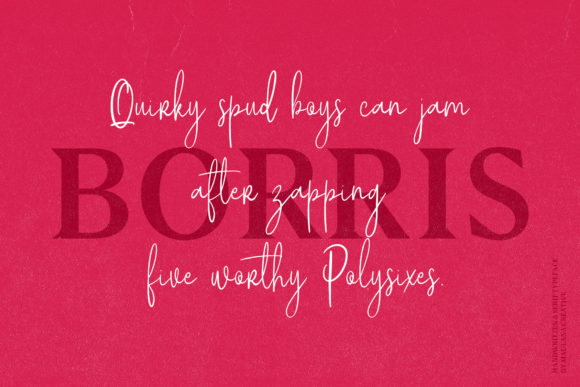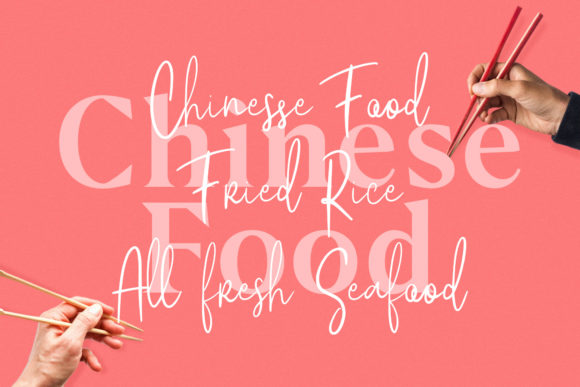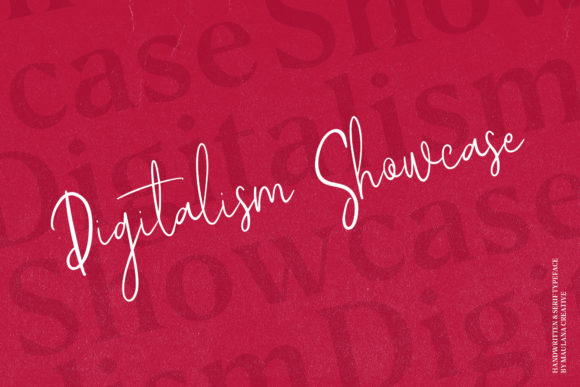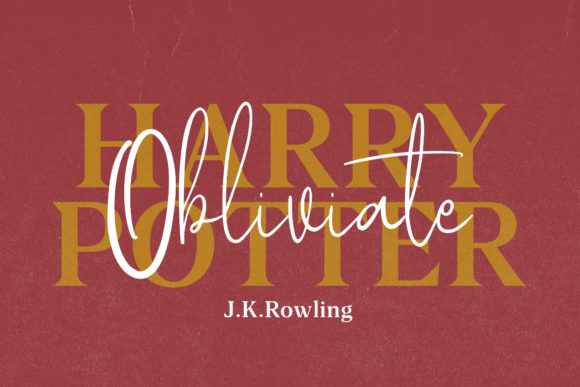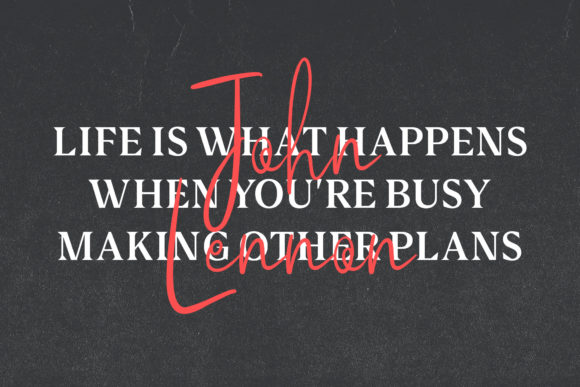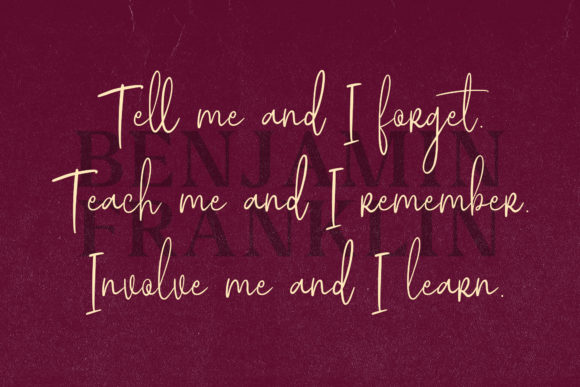
Discover the Bold Personality of Borris Font
Have you ever been stuck in a creative rut, staring at a blank canvas or screen, wondering where to start? We’ve all been there. It’s in those moments of uncertainty that we need a spark to ignite our imagination. For designers, the perfect spark can be a font that speaks to us, a font that says ‘I’m here to make a statement.’ That’s where Borris Font comes in – a fun and bold display font with a cool twist.
Borris Font is designed to add a touch of modern style to your designs, whether it’s a logo, a poster, or a social media graphic. Its unique personality makes it a valuable asset for designers looking to add some edge to their work. With Borris Font, you’ll be able to express yourself in a way that’s both creative and professional.
Borris Font Key Features
- Character Count: This font contains a total of 700 glyphs, including a wide range of characters, symbols, and ligatures to support various languages and typographic needs.
- Unique Characteristics: Borris Font features a unique, hand-drawn style with intricate details and subtle nuances, making it ideal for creative projects that require a touch of elegance and sophistication.
Borris Font Review
I’ve had the chance to work with Borris Font, and I must say, it’s a unique and interesting addition to any design project. Here are some of its strengths and weaknesses.
- The Borris Font has a distinctive, hand-drawn feel that can add a touch of personality to your designs.
- It’s available in a range of weights and styles, making it versatile and easy to use in different contexts.
- The font is well-suited for creative and expressive projects, such as branding, advertising, and editorial design.
- The Borris Font can be a bit difficult to read at small sizes or in low-contrast environments.
- The font’s unique style may not be to everyone’s taste, and it may not be suitable for more formal or traditional designs.
- Some of the characters may not be perfectly legible, which can be a problem in certain contexts.
The Borris Font is a bold and eye-catching choice that can add a lot of personality to your designs. While it may have some limitations, it’s definitely worth considering for the right project. With careful use and consideration, it can be a powerful tool in your design toolkit.
Tips for Getting the Most Out of Borris Font
Use Borris Font for creative projects such as invitations, posters, and brochures.
Experiment with different font sizes, colors, and styles to create a unique and eye-catching design.
Combine Borris Font with other fonts and design elements to add visual interest to your project.
Borris Font is ideal for:
Wedding invitations and wedding station
Alternatives to Borris Font for Designers
Playfair Display is a high-end serif font that is perfect for creating a luxurious and elegant look. It features beautiful swashes and flourishes that make it ideal for use in branding, advertising, and editorial design. When to use: Use Playfair Display for high-end branding, luxury goods, and special events.
Comparison to Borris Font: Playfair Display is more elegant and refined compared to Borris Font, which has a more playful and quirky feel. Playfair Display is also more versatile and can be used in a wider range of contexts, while Borris Font is more suited for creative and artistic projects.